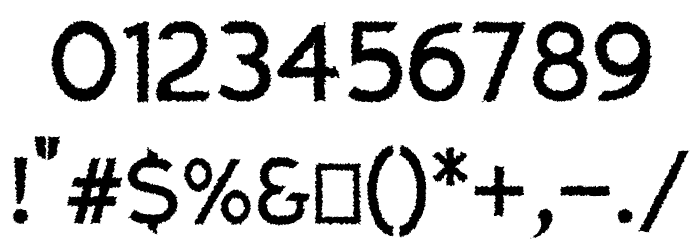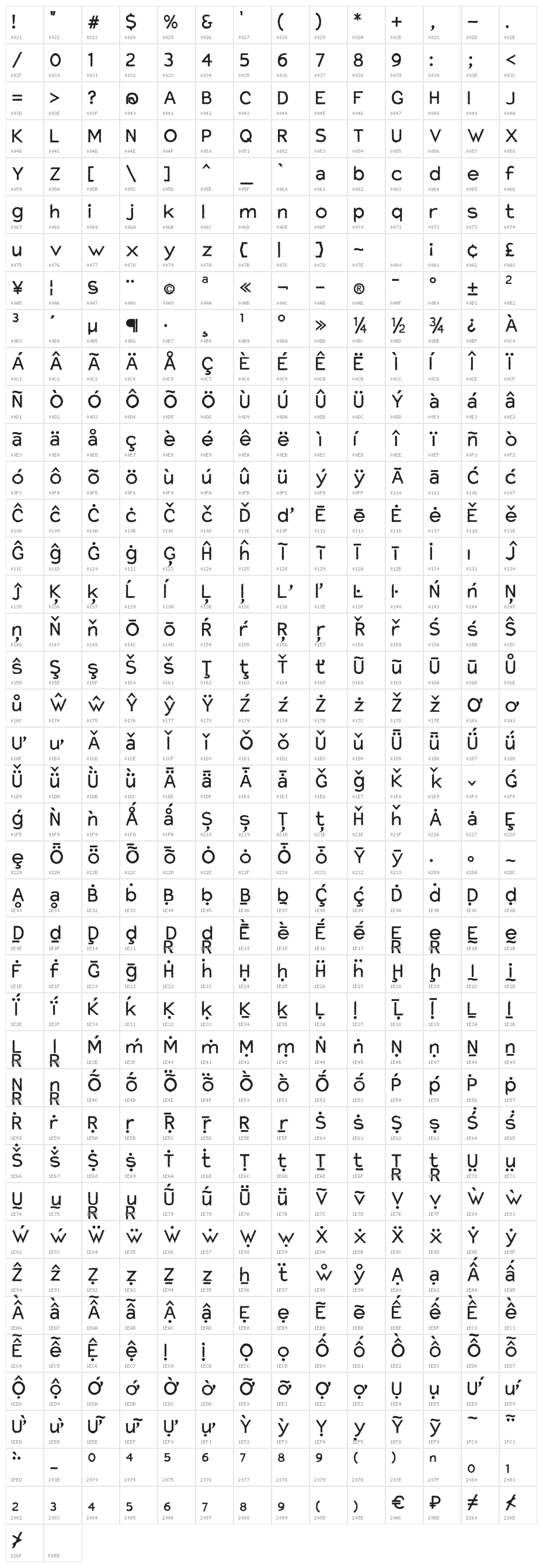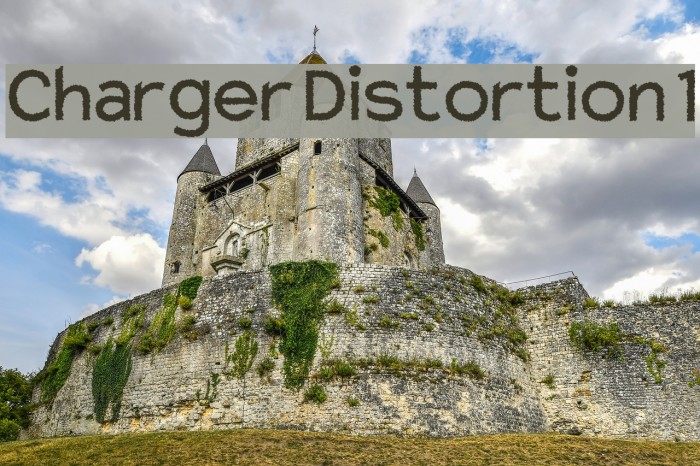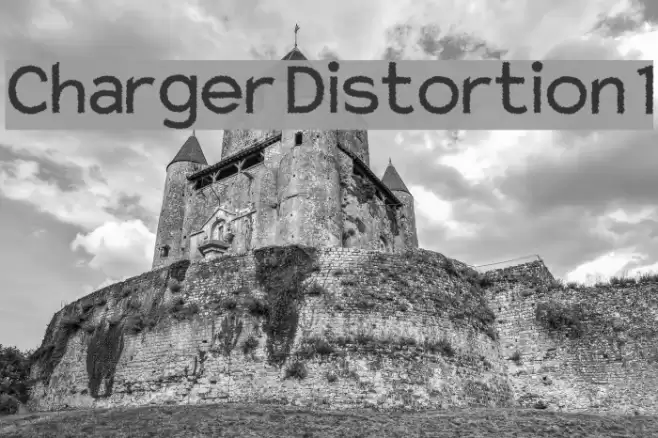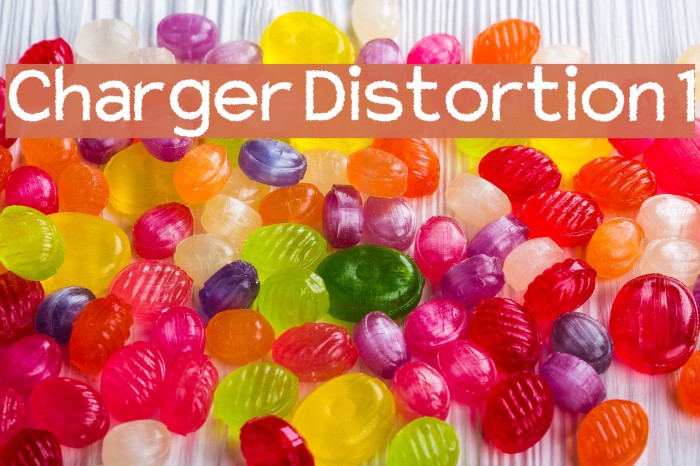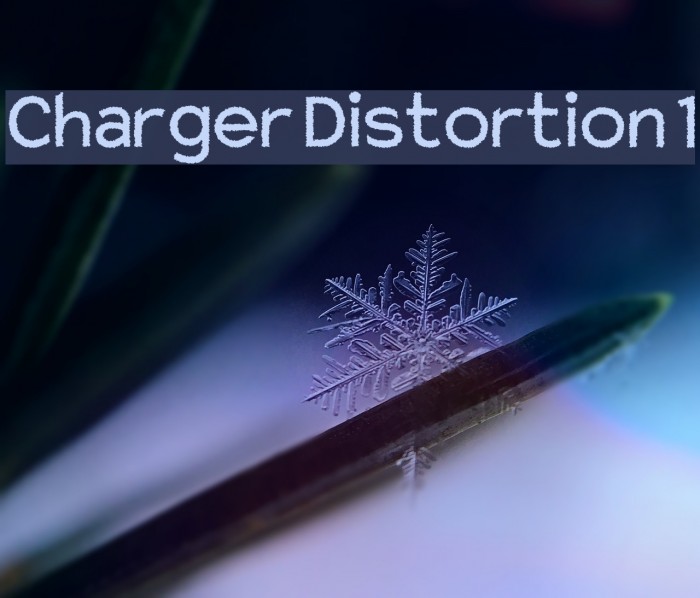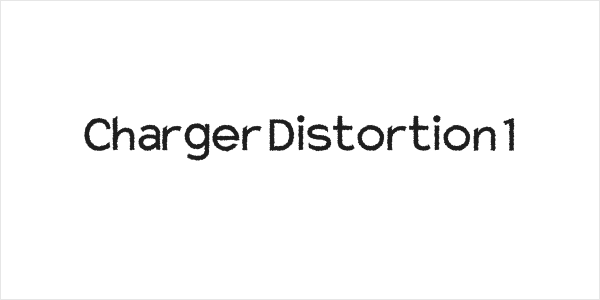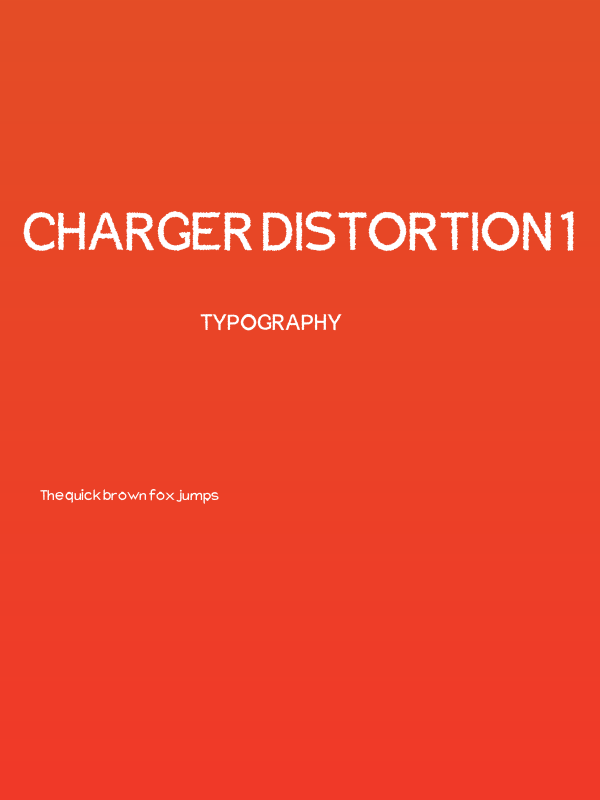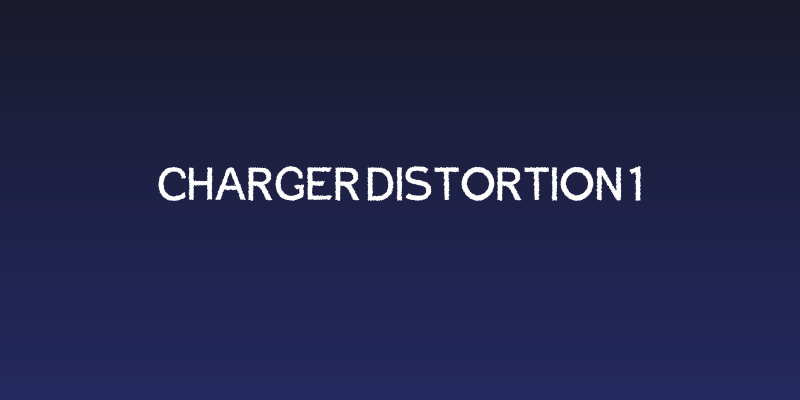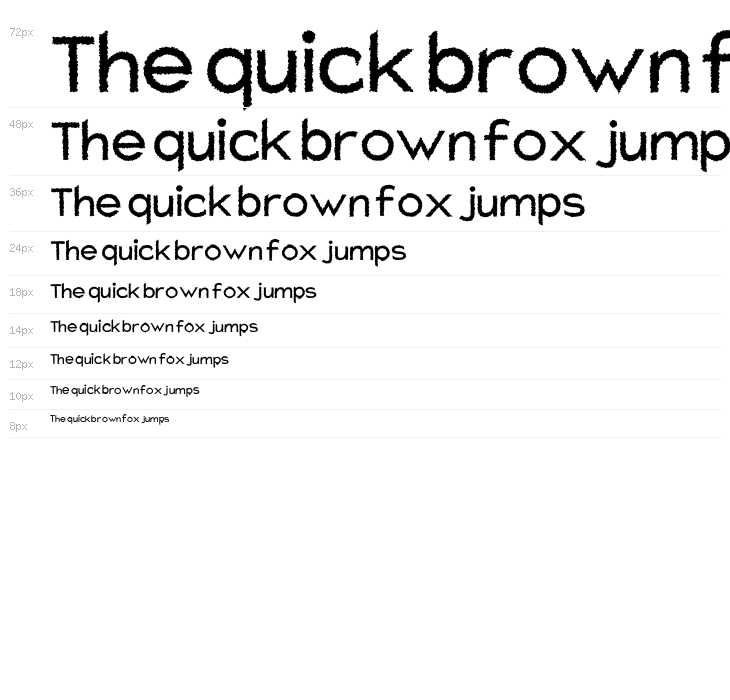
Charger Distortion 1 Font
Charger Distortion 1 Description
This font features a unique, distorted style that gives it a textured, almost hand-drawn appearance. The characters are bold and slightly irregular, with a rough edge that adds a sense of dynamism and energy. The uppercase and lowercase letters maintain a consistent height, while the numerals and special characters follow the same stylistic approach. The overall look is modern and edgy, making it suitable for projects that require a distinctive and unconventional typeface.
| Overall Style | Modern, Edgy |
| Proposed Projects | Ideal for music album covers, edgy branding, posters, and creative digital media projects. |